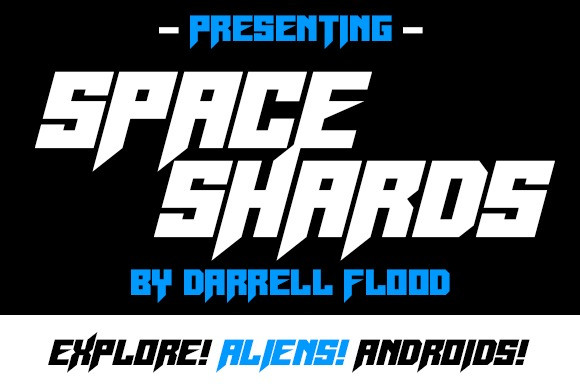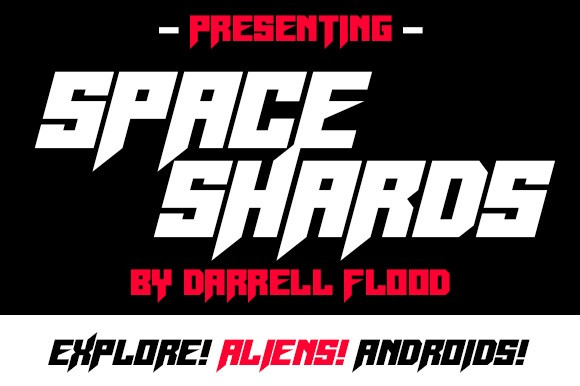
Space Shards Font
Space Shards Display Font, A crisp, angular font in a razor-sharp, edgy style. Perfect for alien encounters, high-tech presentations, and general sci-fi use!